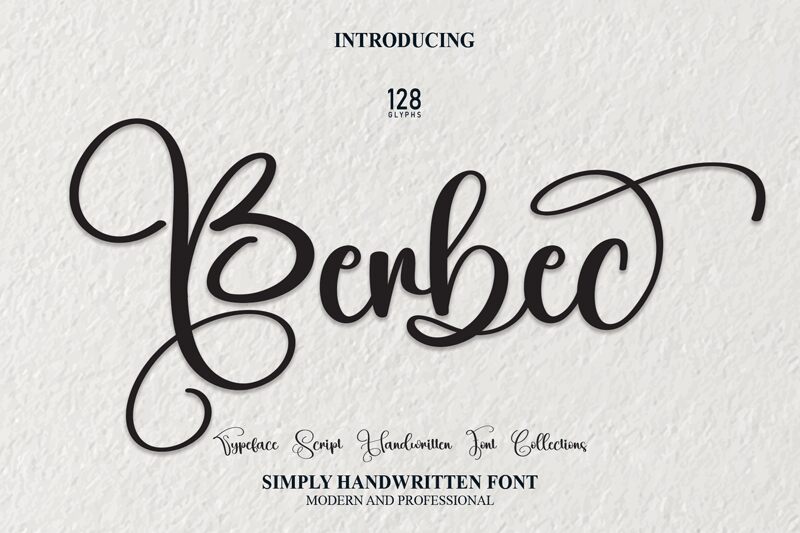
Berbec
Berbec, designed by scratchones, is a captivating calligraphy font that effortlessly blends elegance and modernity. With its semi-light weight, Berbec exudes sophistication and versatility. Perfect for wedding invitations, luxury branding, or fashion editorials, this font adds a touch of finesse to any project. Whether you're designing a romantic logo or creating stunning typography for an upscale event, Berbec's graceful strokes and refined curves will make your work stand out. Explore the endless possibilities of this enchanting semi-light calligraphy font and elevate your designs to new heights!
the latest style letters are perfect for wall displays, wedding invitations, social media post logos, advertisements, product packaging, product designs, labels, photography, watermarks, invitations, stationery, and any project that requires taste handwriting.